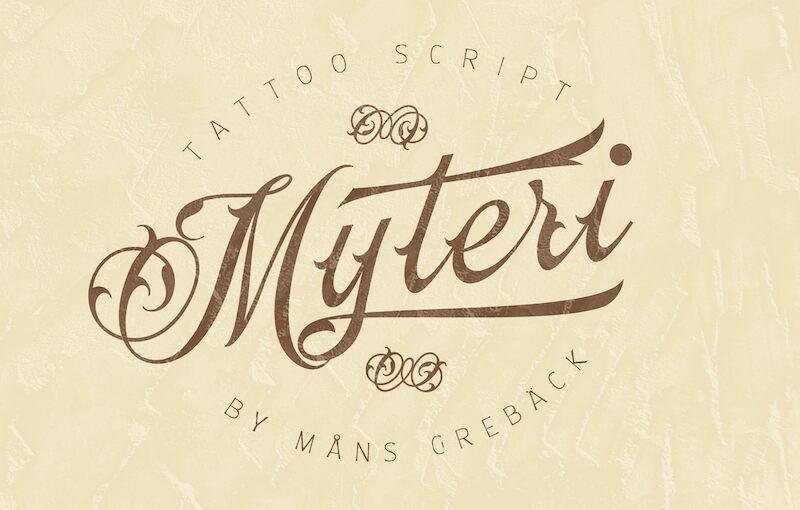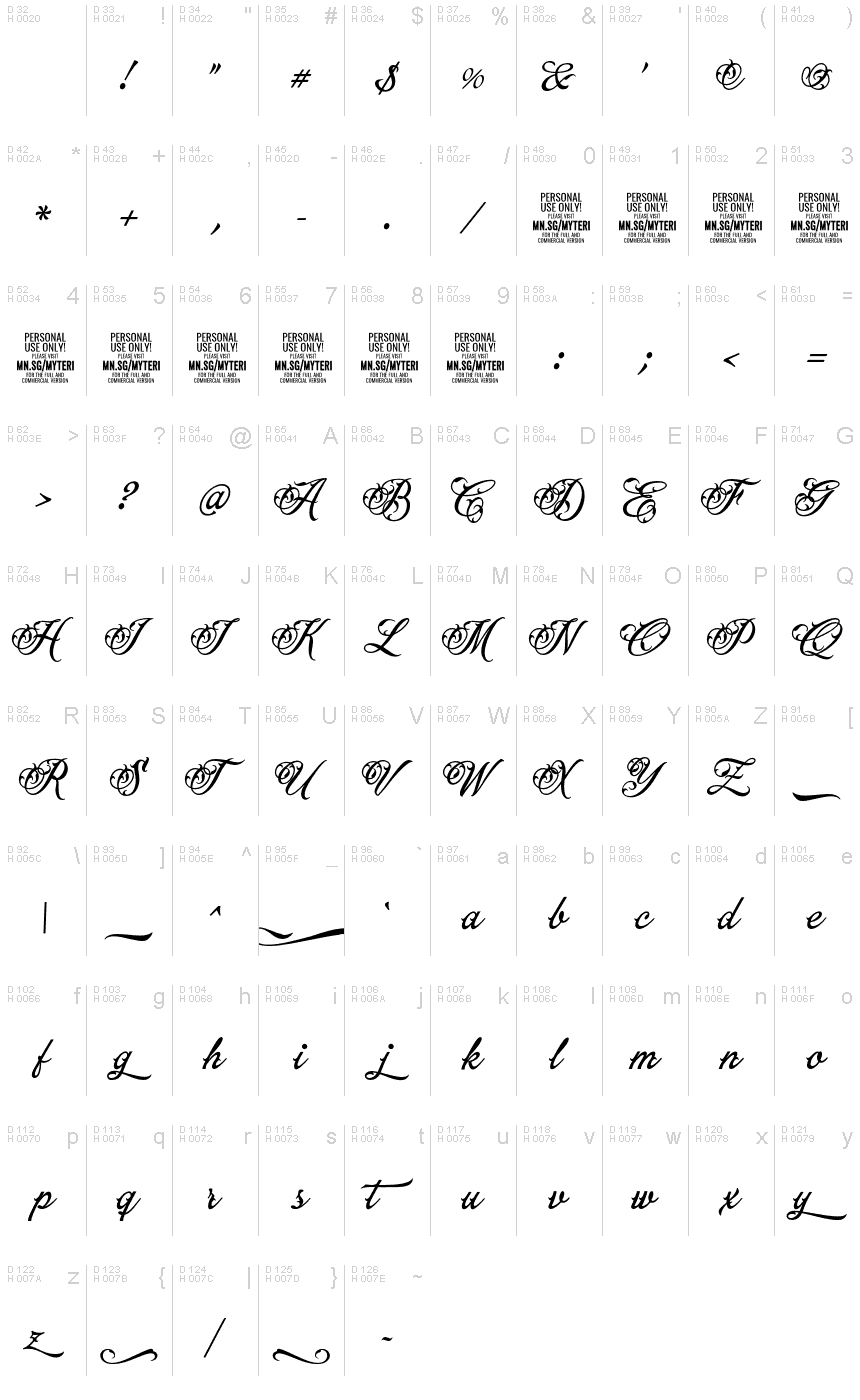
Myteri Black font is a hot tattoo typeface designed by Mans Greback.
To make swashes, use [ ] { } _ anywhere in a word.
Example: Tatt_oos
Write multiple [ ] { } to make swashes of different lengths.
Example: Super[[[star